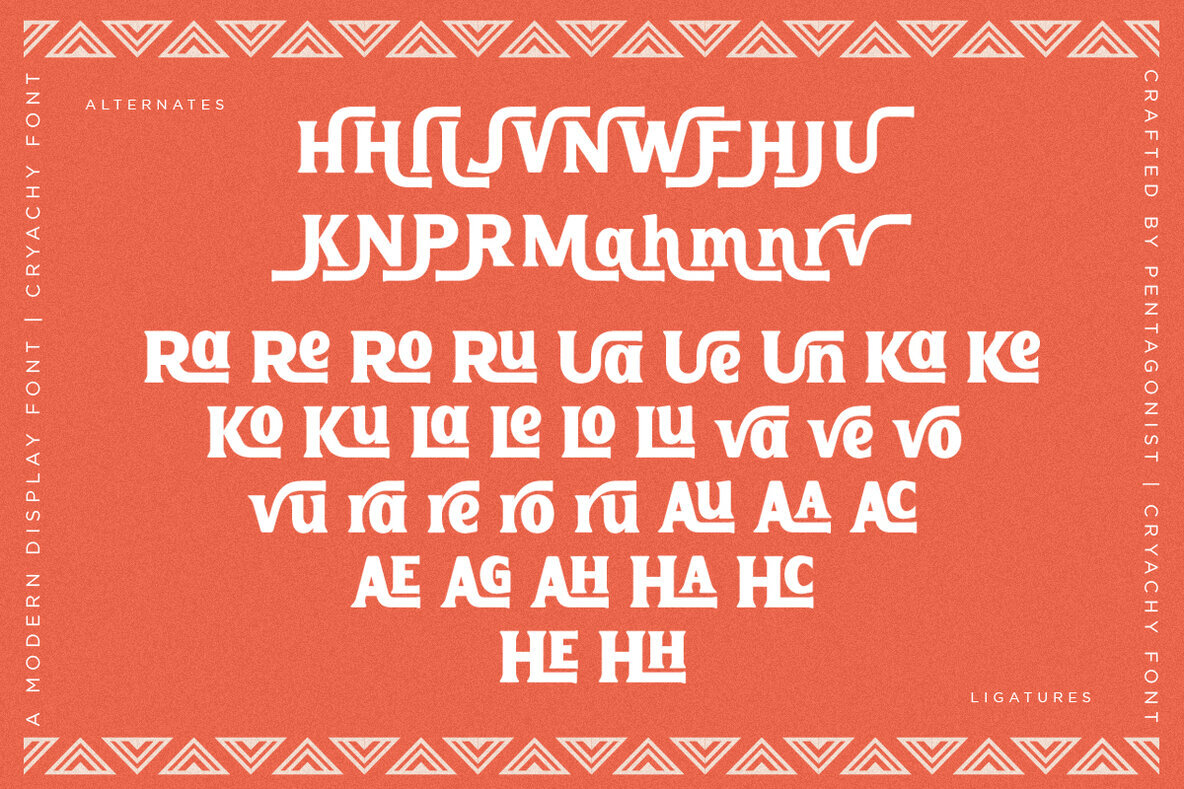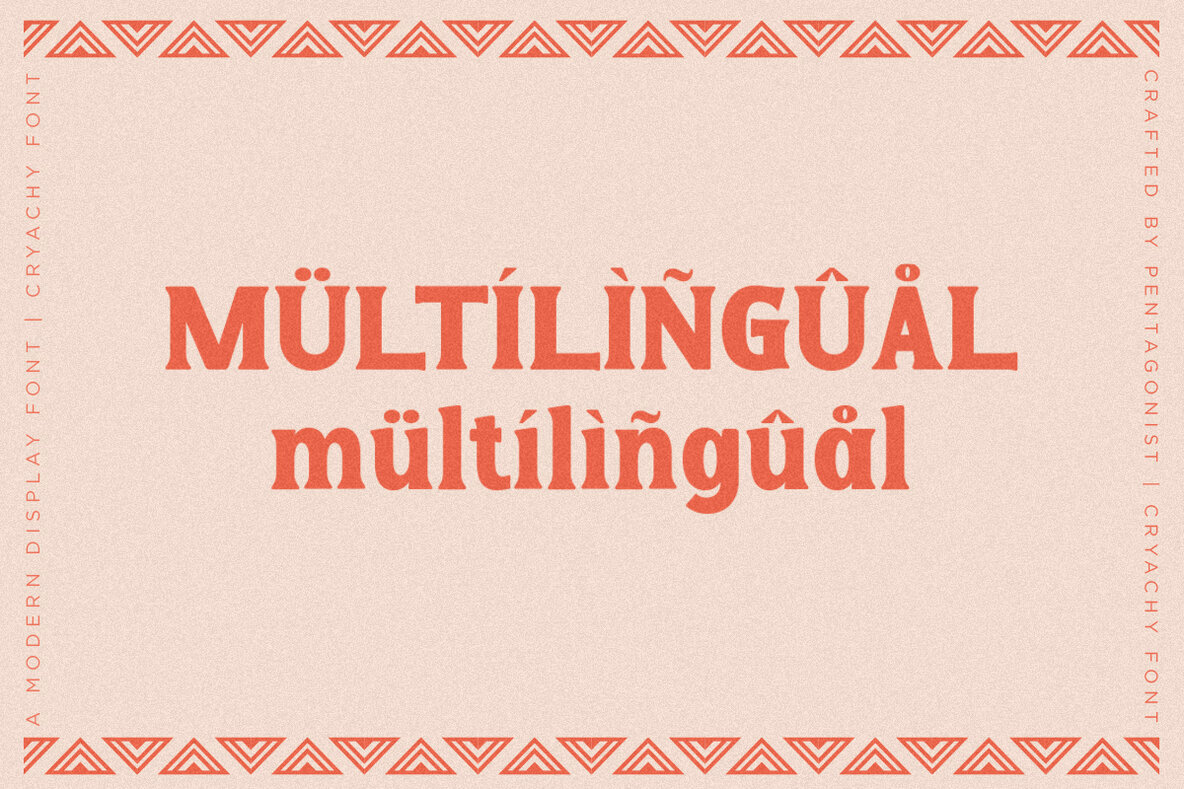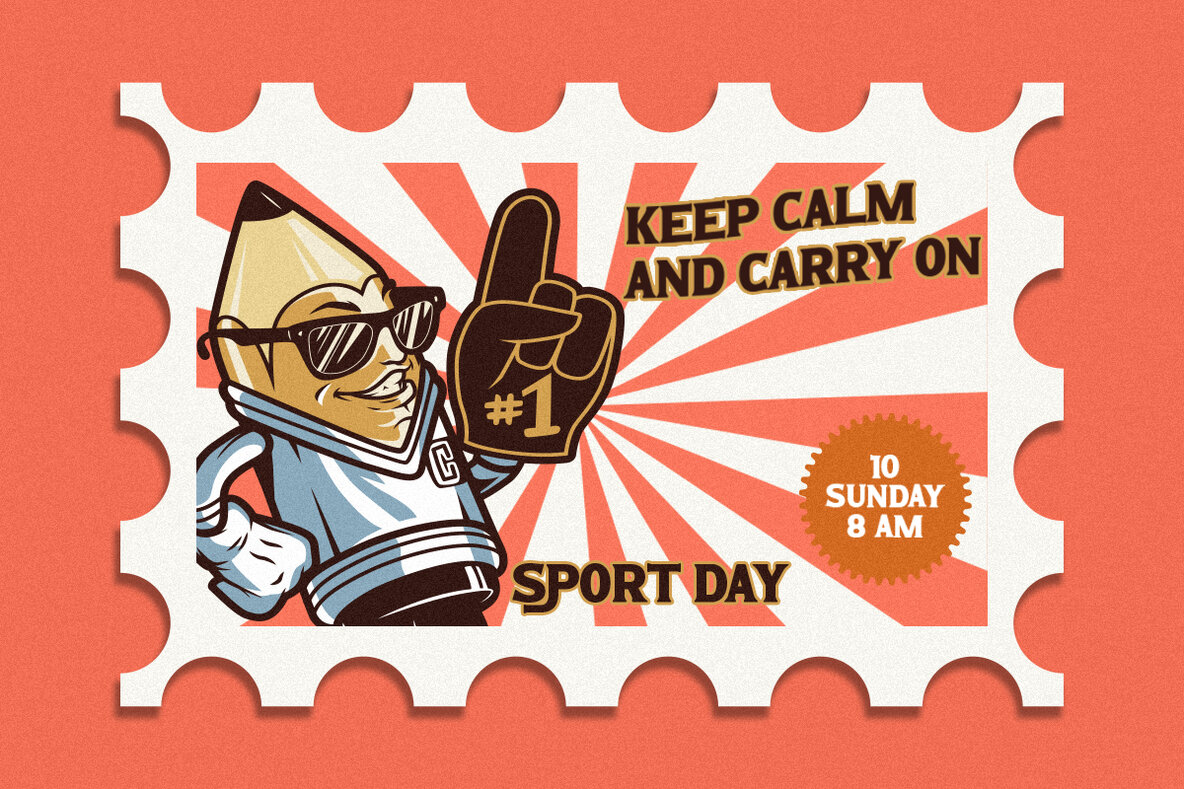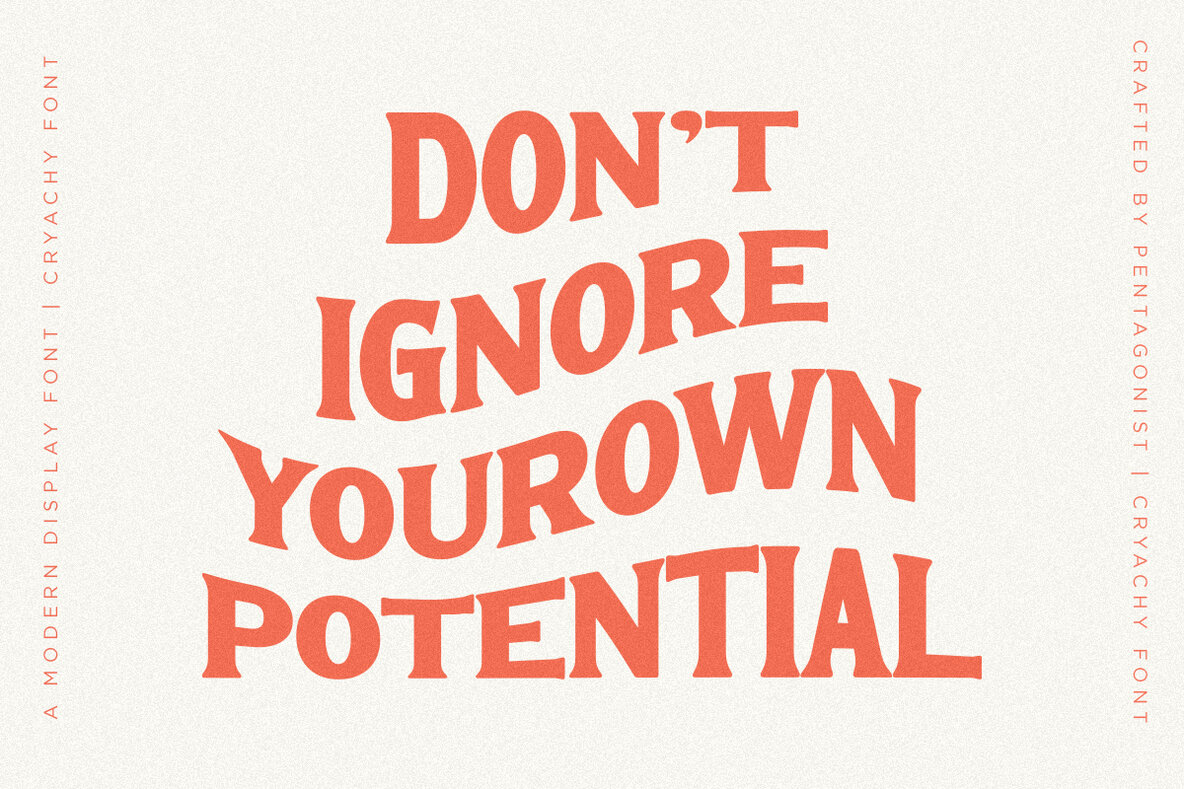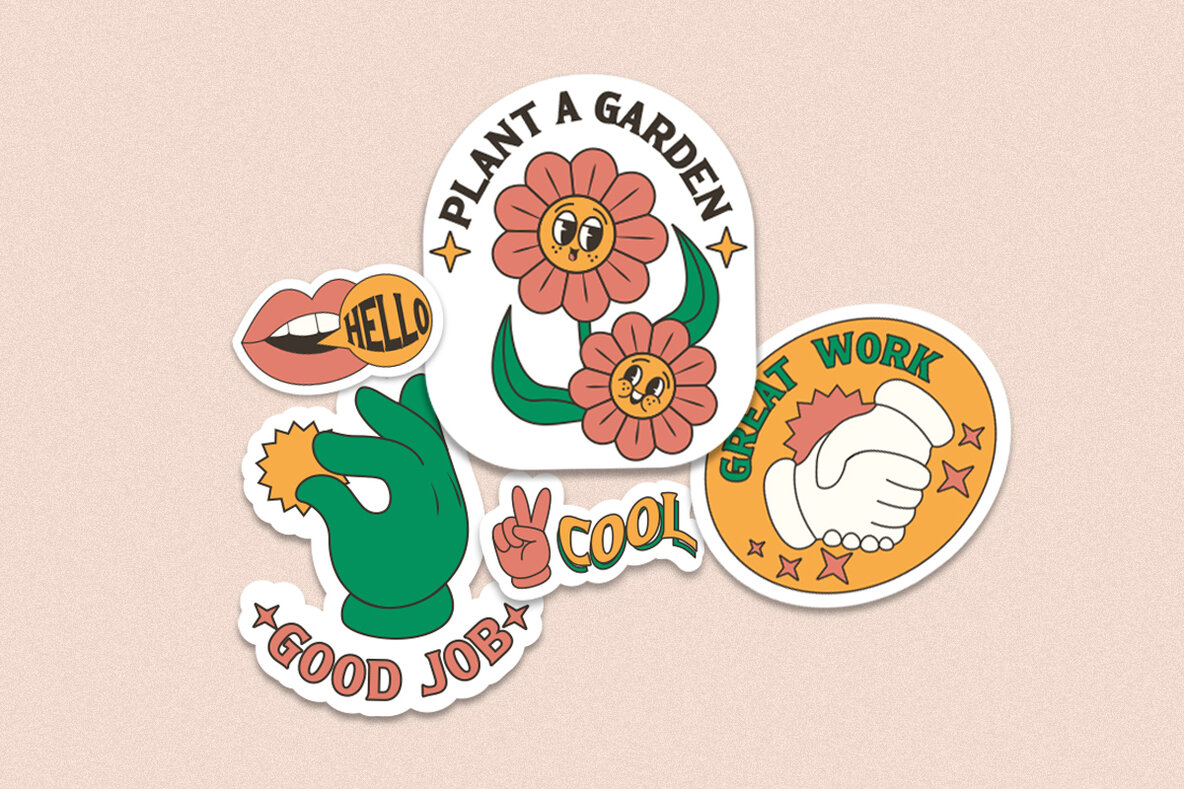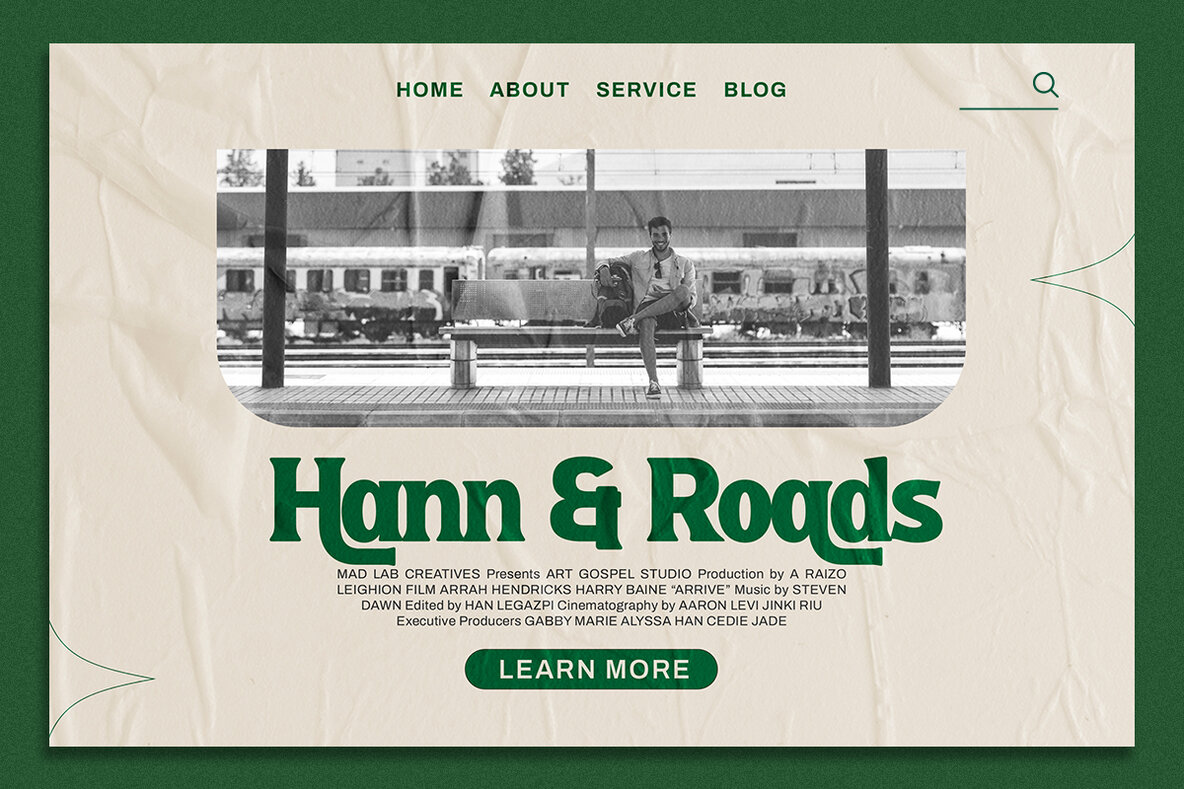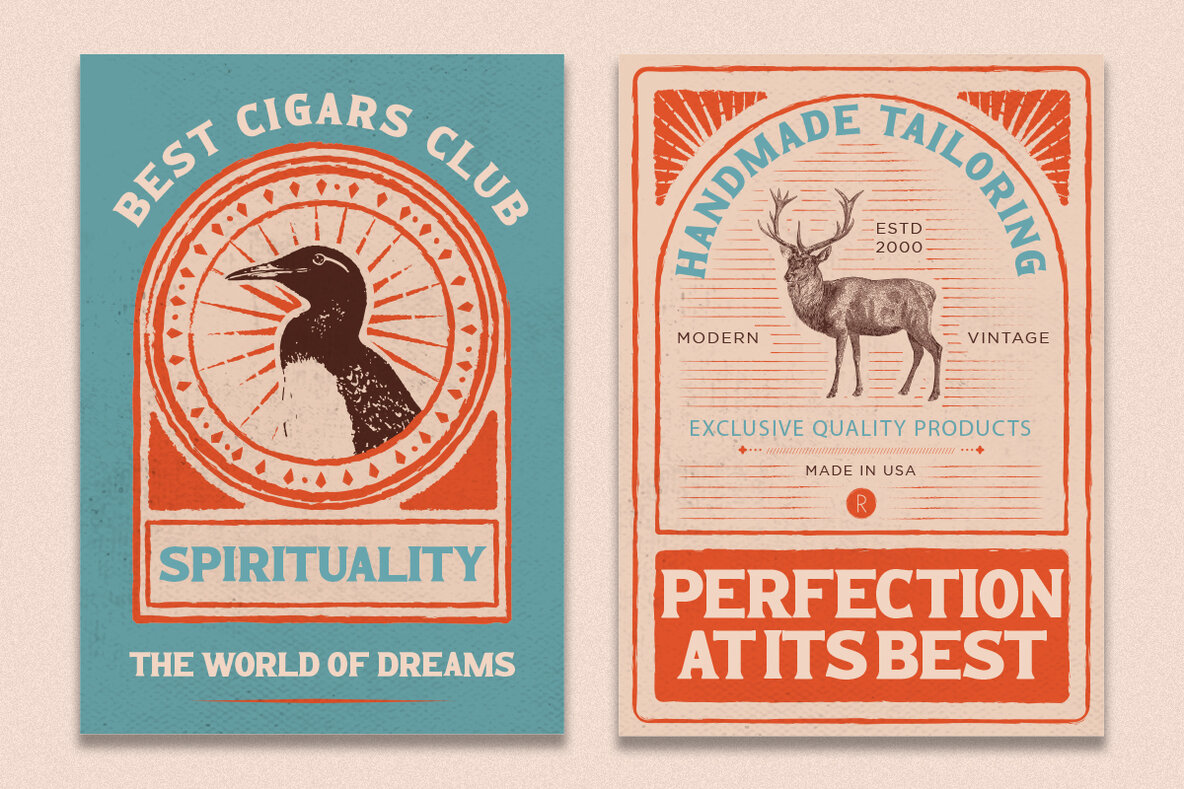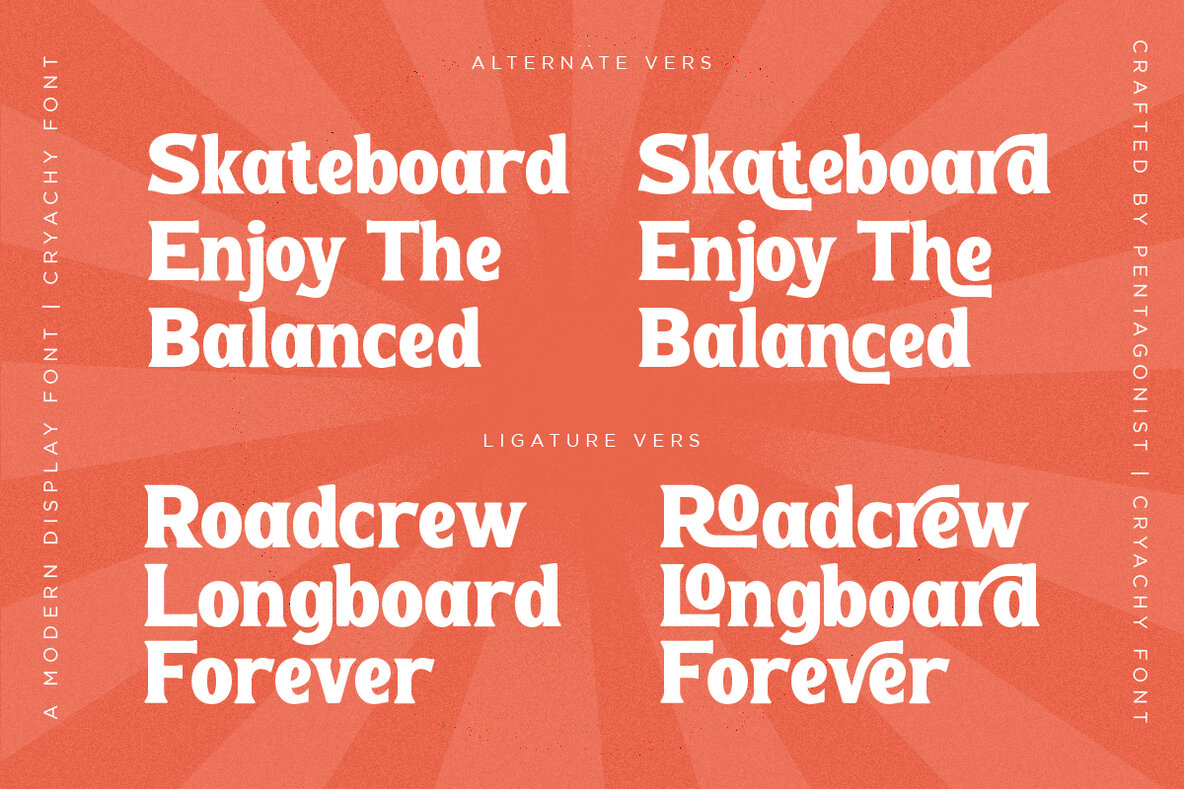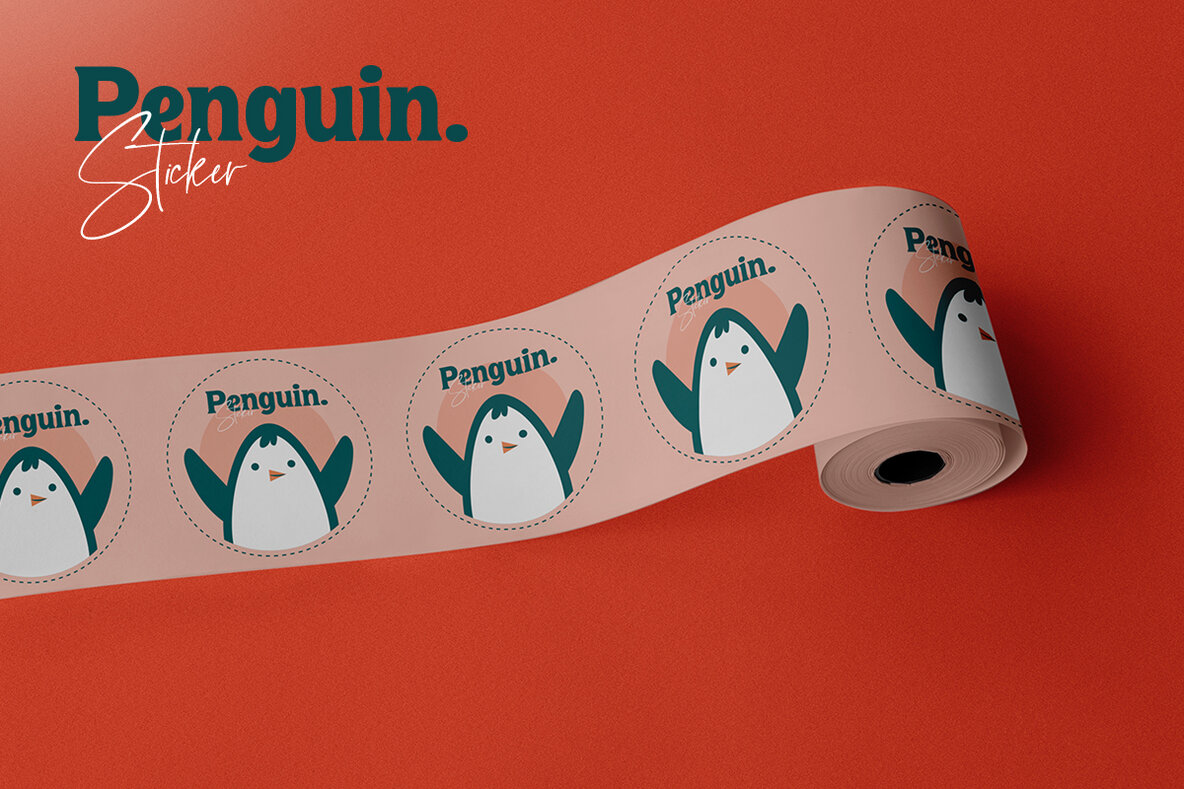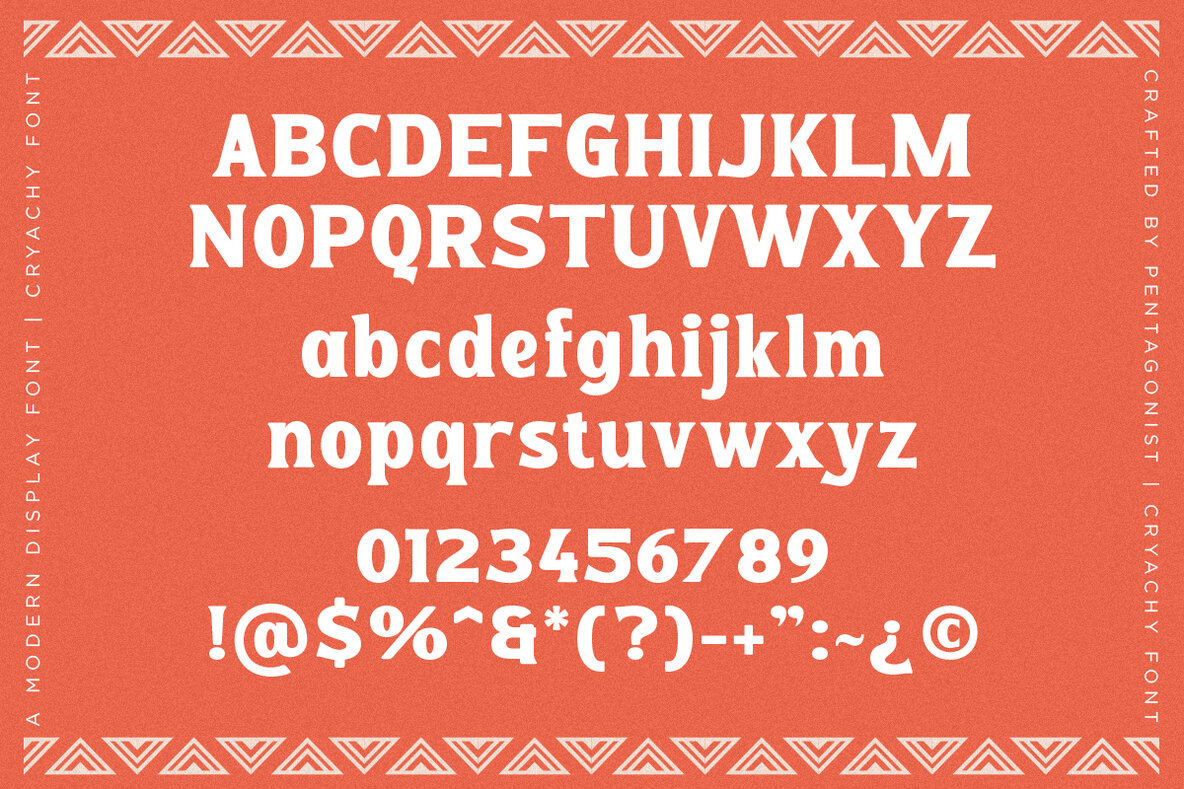
Cryachy Font
Cryachy Regular
Introducing Cryachy, the modern display character that will elevate your designs to the next level. Inspired by stylish and edgy aesthetics, Cryachy is the perfect font to make a bold statement in your designs.
With Cryachy, you'll be able to create stunning graphics, logos, and branding materials that exude confidence and attitude. Its unique character and sharp edges make it stand out from other fonts, giving your designs a distinct and memorable look.
But that's not all. Cryachy is also incredibly versatile. Whether you're designing for a fashion brand, a tech startup, or a food company, Cryachy can adapt to any style and convey your message with impact and clarity.
One of the greatest benefits of Cryachy is that it's easy to read. Unlike other display fonts that sacrifice legibility for style, Cryachy maintains a high level of readability, ensuring that your audience can easily understand your message.
In addition, Cryachy is designed with the user in mind. Its clean and modern lines make it easy to read on any device, whether it's a computer, tablet, or phone. This means that your designs will look great on any platform, increasing your reach and engagement.
Don't settle for ordinary fonts that blend in with the crowd. Choose Cryachy and stand out from the competition. With its modern style, versatility, and ease of use, Cryachy is the perfect choice for designers who want to create impactful and memorable designs.